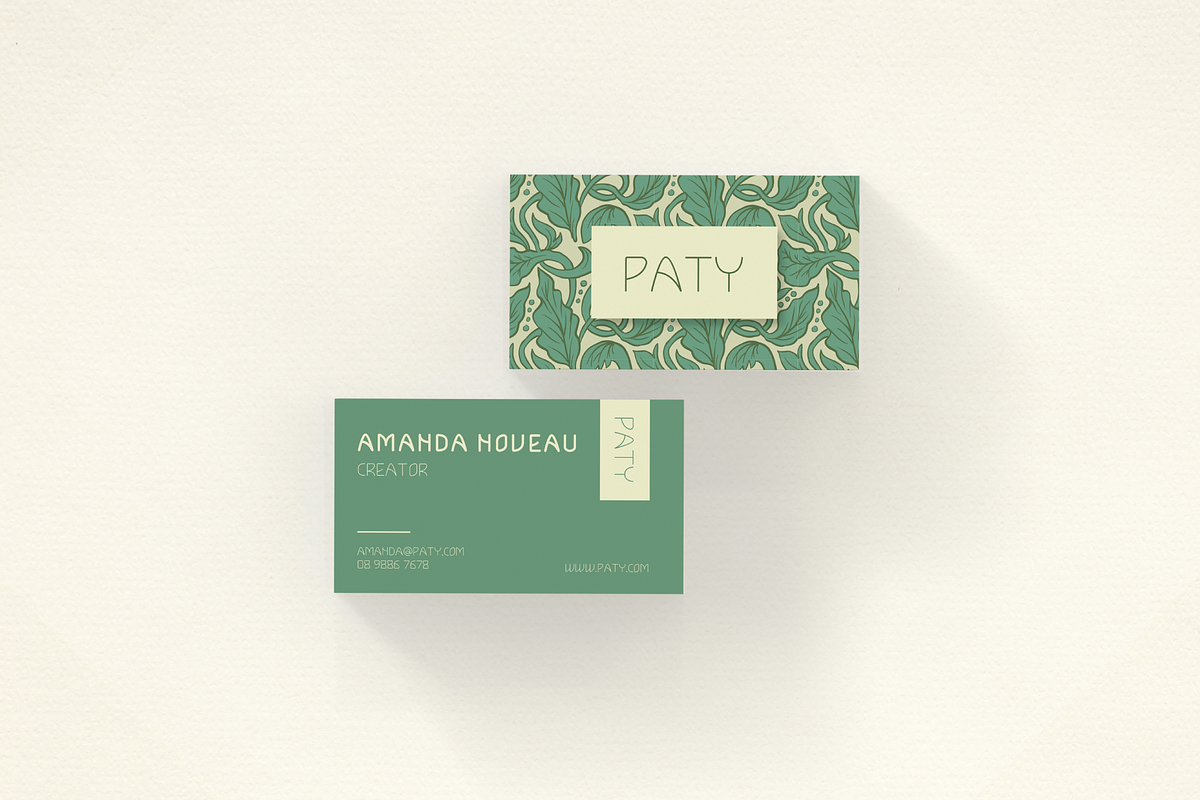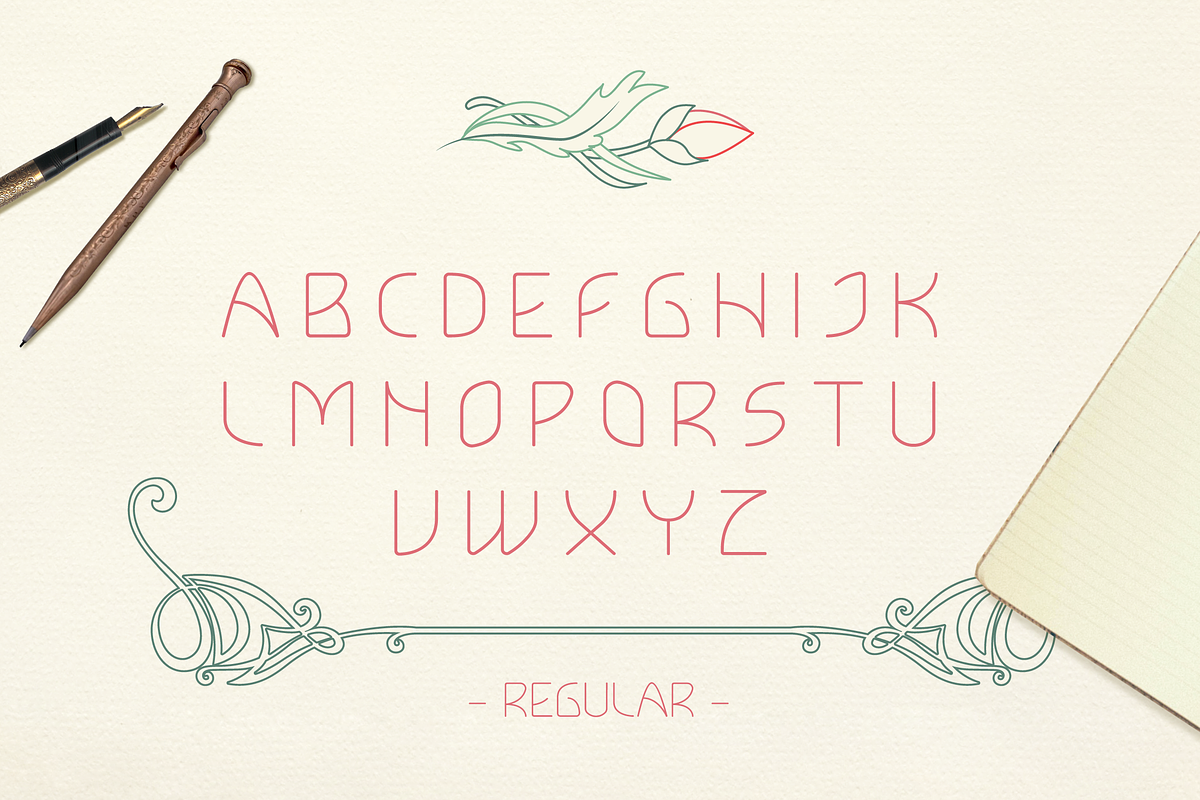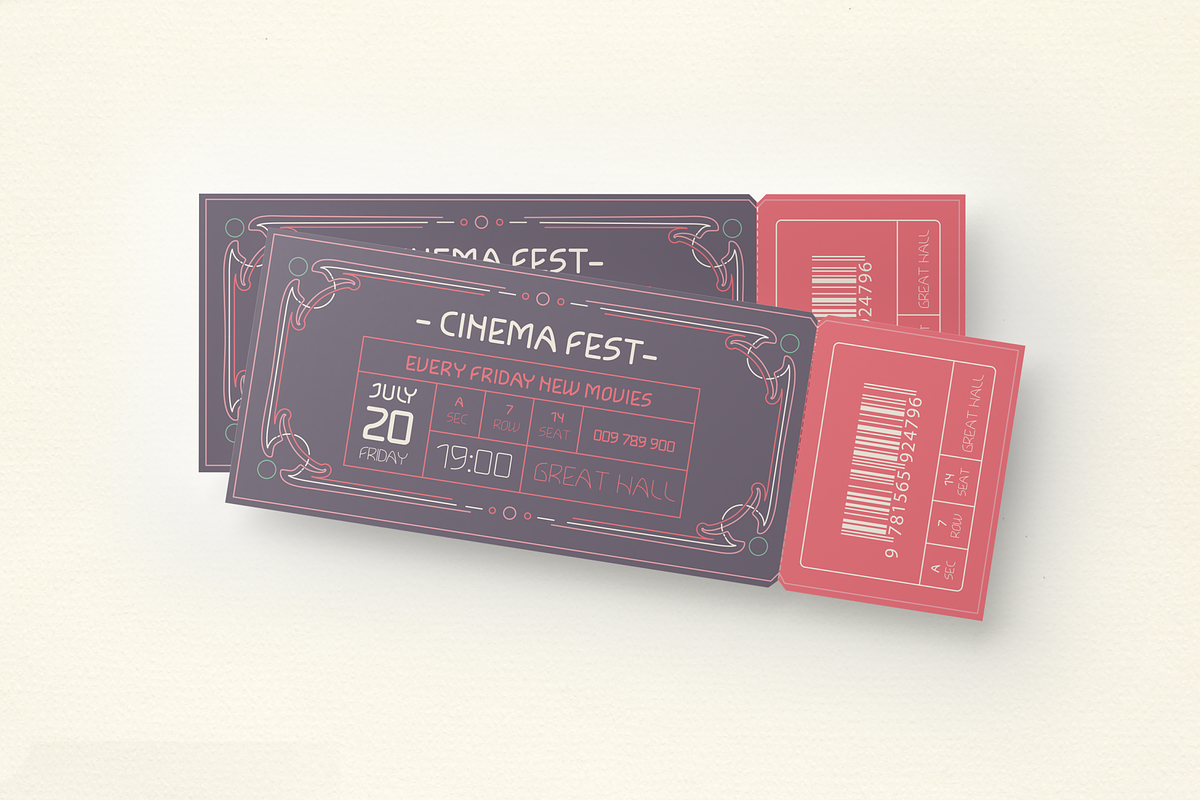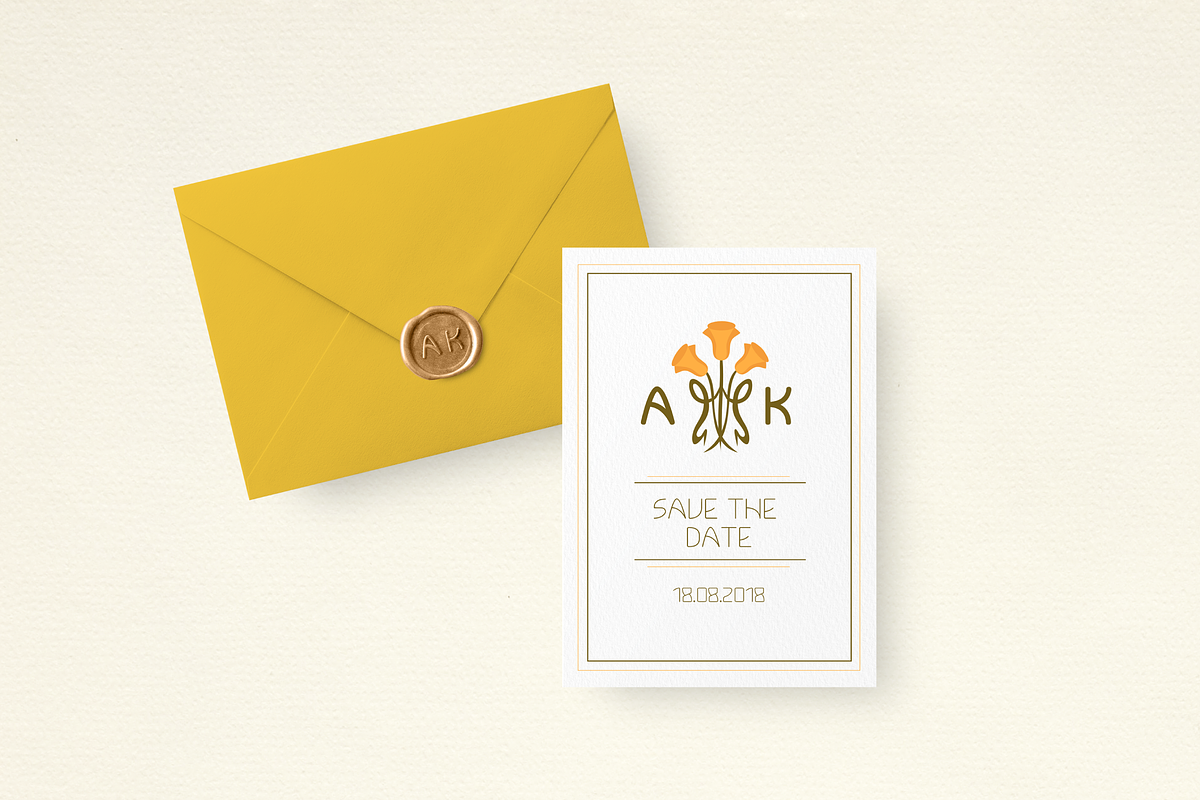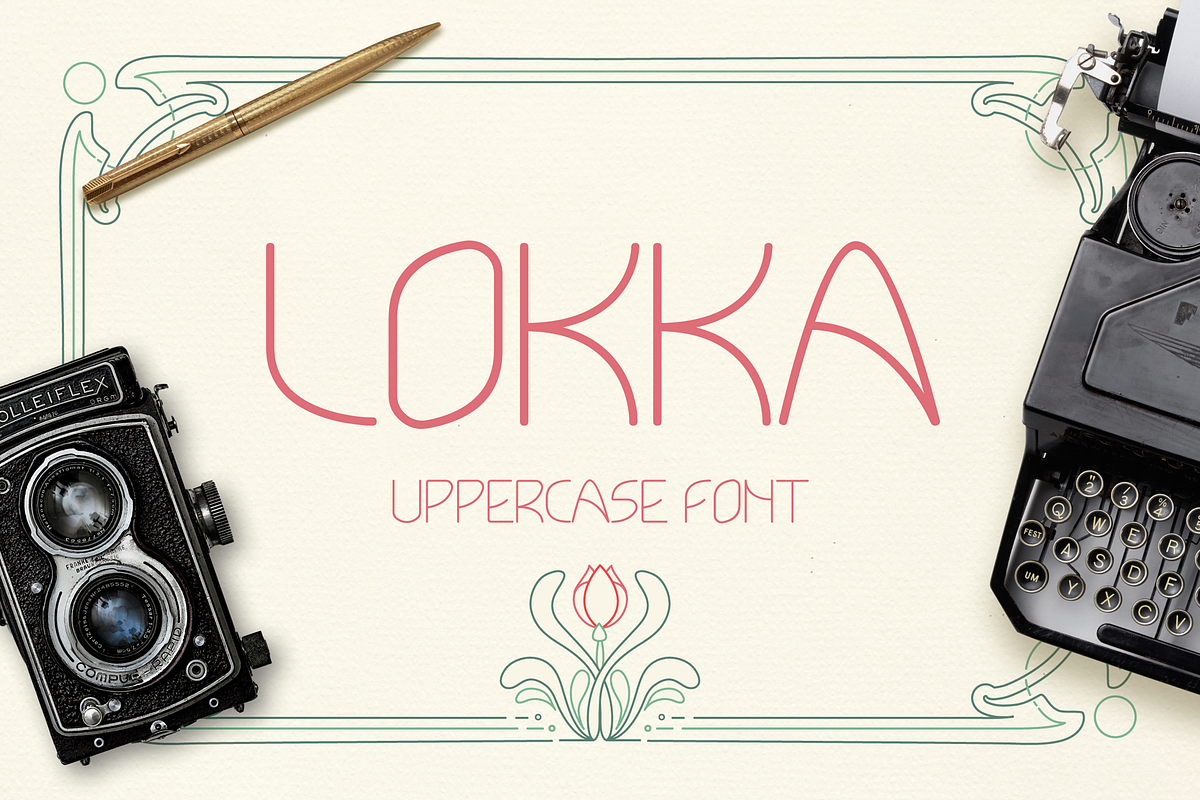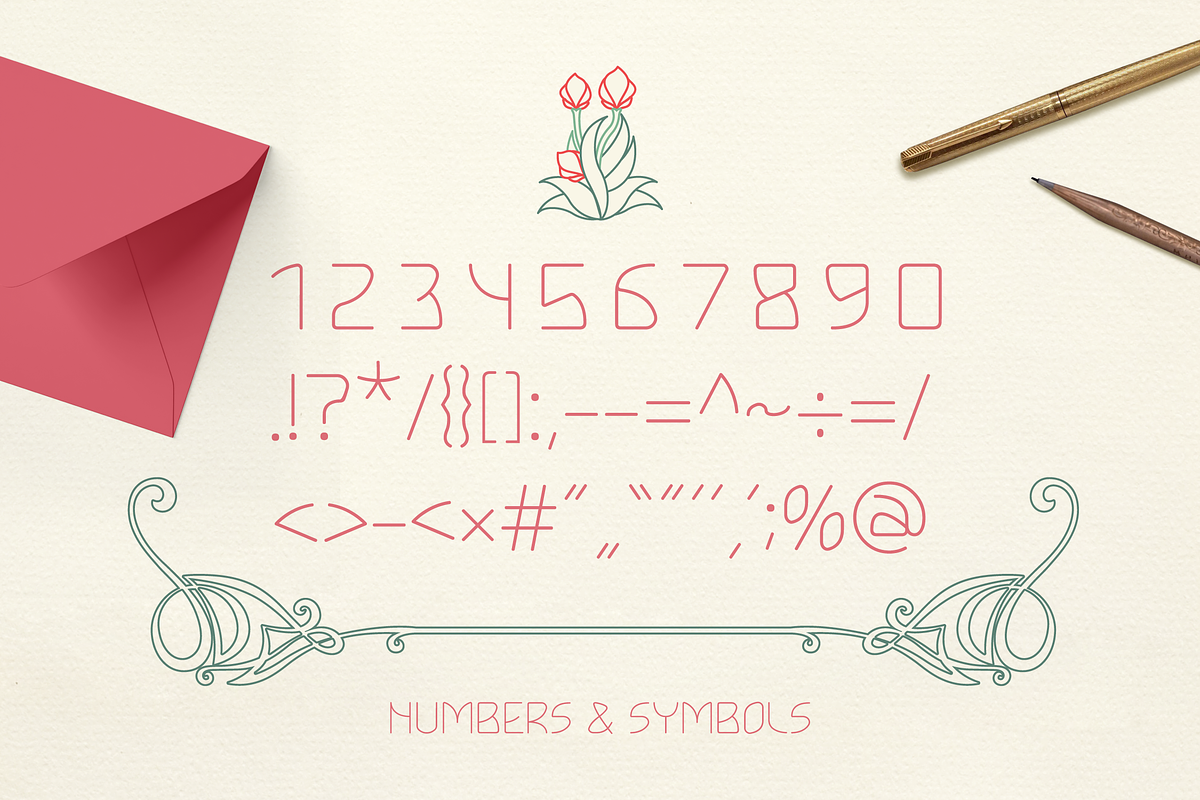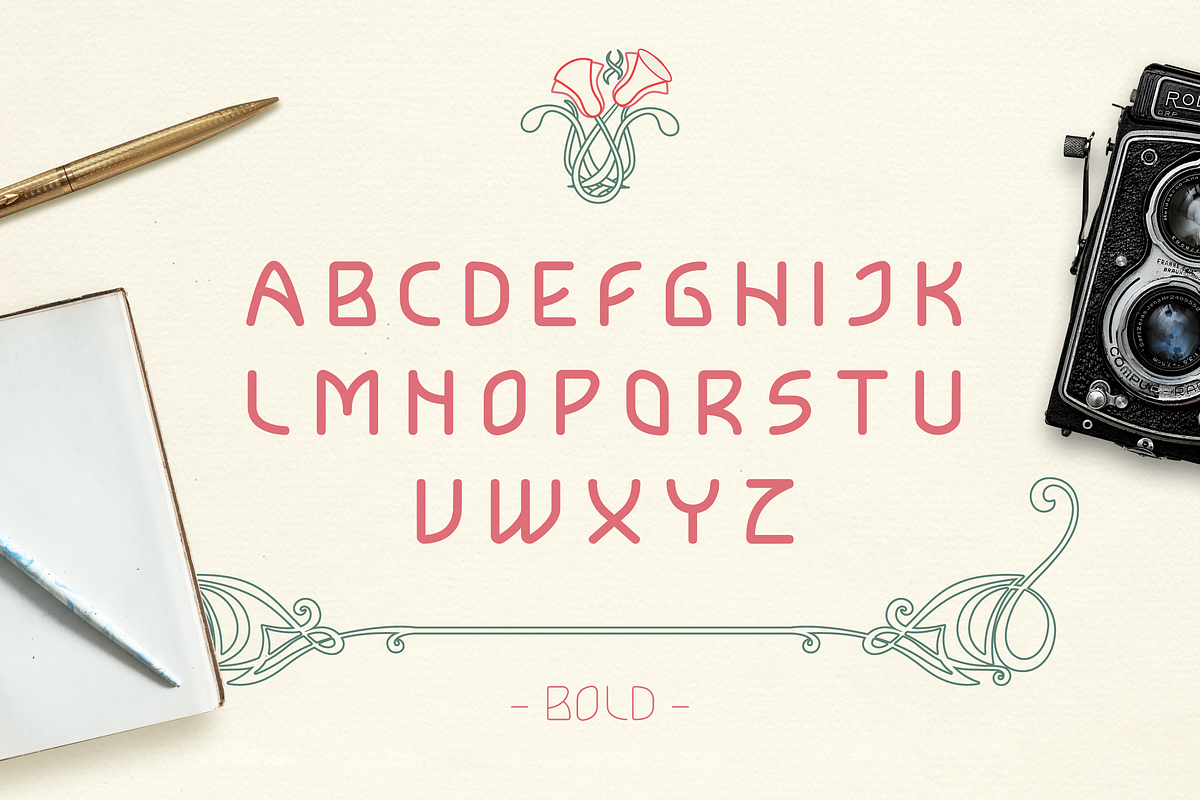
Lokka Uppercase Font
Lokka Uppercase Font is a geometric display font with a strong construction underneath and it has modern retro look. Lokka has regular and bold versions. It works well for short descriptions, logo and brand identity designs, packaging, headlines, etc.
- Uppercase letters, numbers, symbols included.